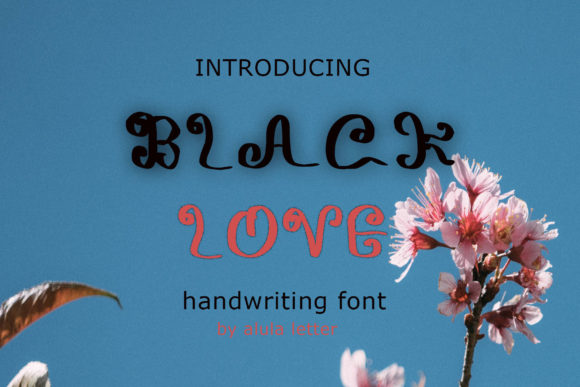
The Power of Black Love Font: Elevate Your Designs with a Cute and Fun Script
I’ll never forget the design project that made me fall in love with the Black Love font. I was working on a Valentine’s Day-themed craft project, and I needed a font that would capture the playful, romantic vibe I was going for. After hours of scrolling through font libraries and trying out different options, I stumbled upon Black Love. Its unique charm and whimsical feel instantly won me over, and I knew I had found the perfect fit. In this article, I’ll share my experience with Black Love, its features, and how to make the most of this beautiful font in your designs.
An Honest Review of Black Love Font
So, what makes Black Love font so special? Here are some things I love about it:
- ✨ Unique and playful script style that’s perfect for creative projects
- ✅ Easy to read, even in smaller sizes
- 💕 Adorable and charming, adding a touch of personality to any design
- 🎨 Highly versatile, suitable for a wide range of design applications
Of course, no font is perfect, and Black Love has a few quirks:
- 🤔 Some letters may not connect perfectly, which can affect the flow of the text
- ⚠️ Limited availability of certain special characters
The Story Behind Black Love Font
Black Love font was designed with love and care by a talented type designer who wanted to create a font that would spread joy and positivity. Inspired by the beauty of handwritten scripts and the playfulness of digital fonts, Black Love was born. Its unique charm and character have made it a favorite among designers and crafters alike.
| Is Black Love font suitable for body text? | While Black Love font is beautiful, it’s best suited for headlines, titles, and short paragraphs. For body text, a clearer font may be more readable. |
Black Love font is a beautiful and charming script font that’s perfect for adding a touch of personality to your designs. With its unique features, versatility, and ease of use, it’s no wonder it’s become a favorite among designers and crafters. Whether you’re working on a creative project, crafting a handmade gift, or simply looking for a font to express yourself, Black Love is sure to inspire and delight.